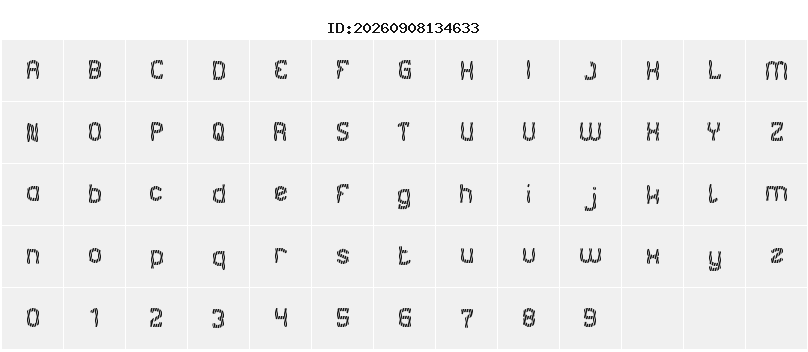
UNDERGROUND 2 Preview
• Font Name: UNDERGROUND 2
• Full Font Name: UNDERGROUND 2
• Version: Version 1.00 January 2, 2017, initial release
About UNDERGROUND 2.ttf
UNDERGROUND 2.ttf is a modern, elegant sans-serif font designed for ultimate readability and visual harmony. Perfect for branding, headlines, web design, and print materials.